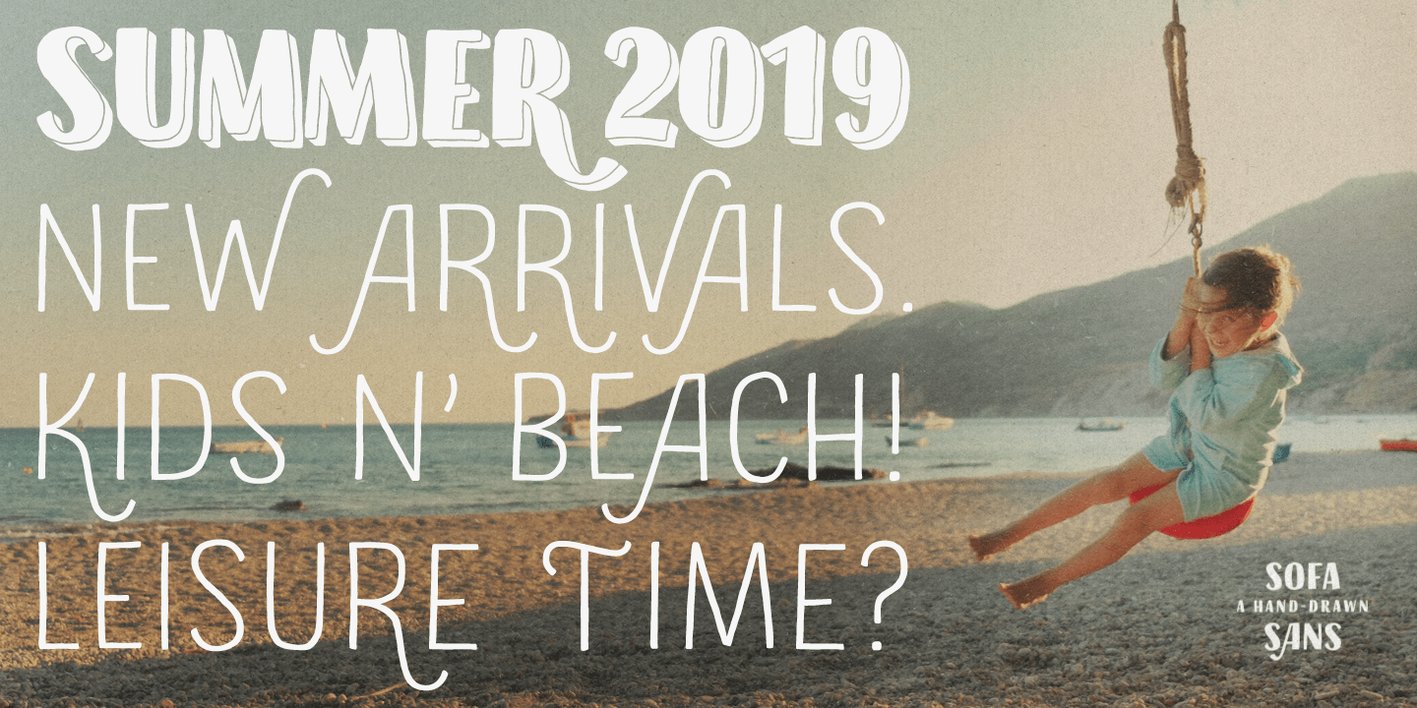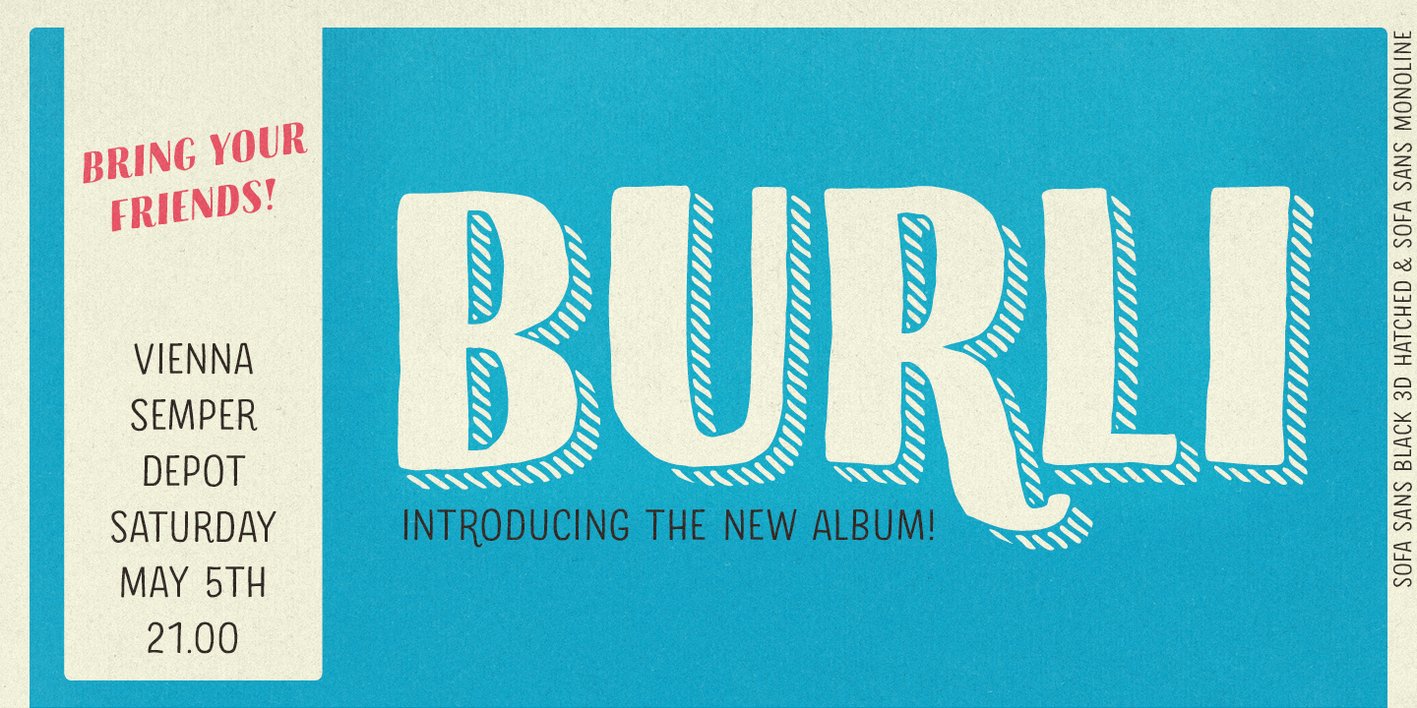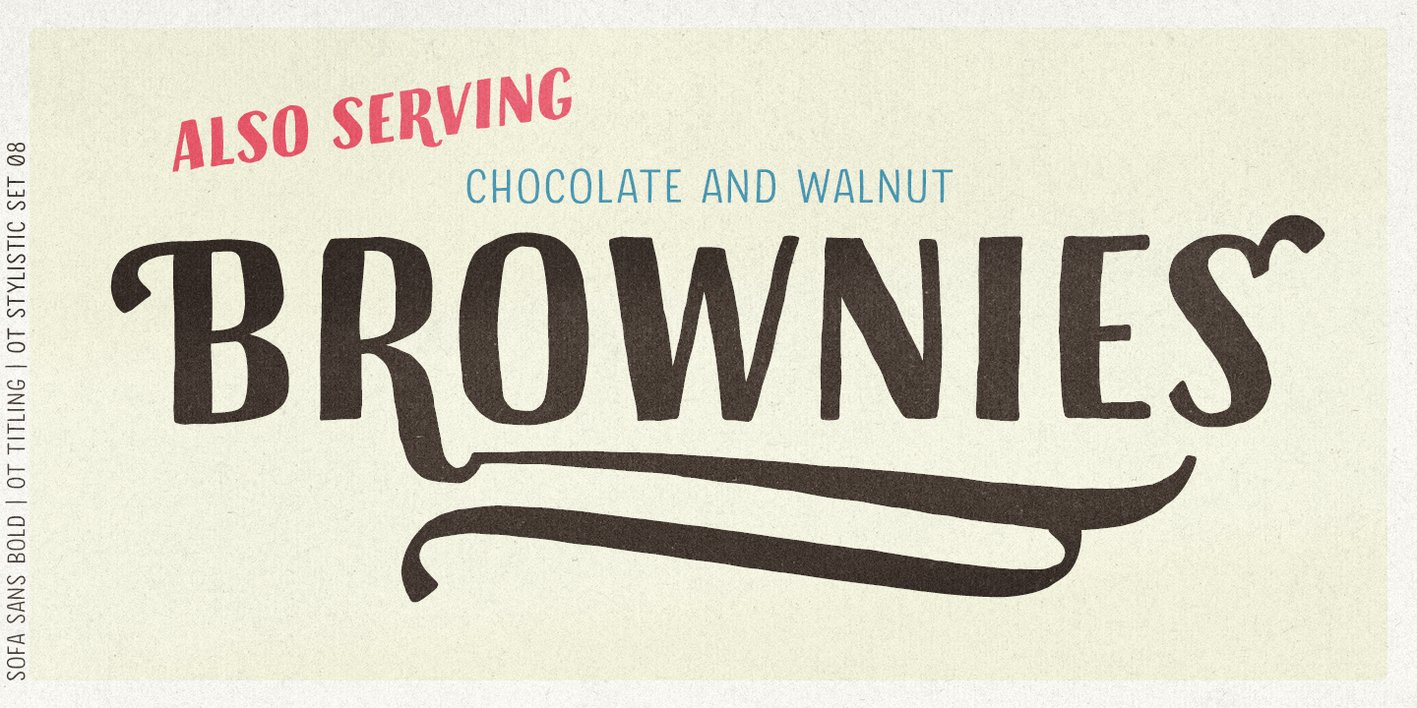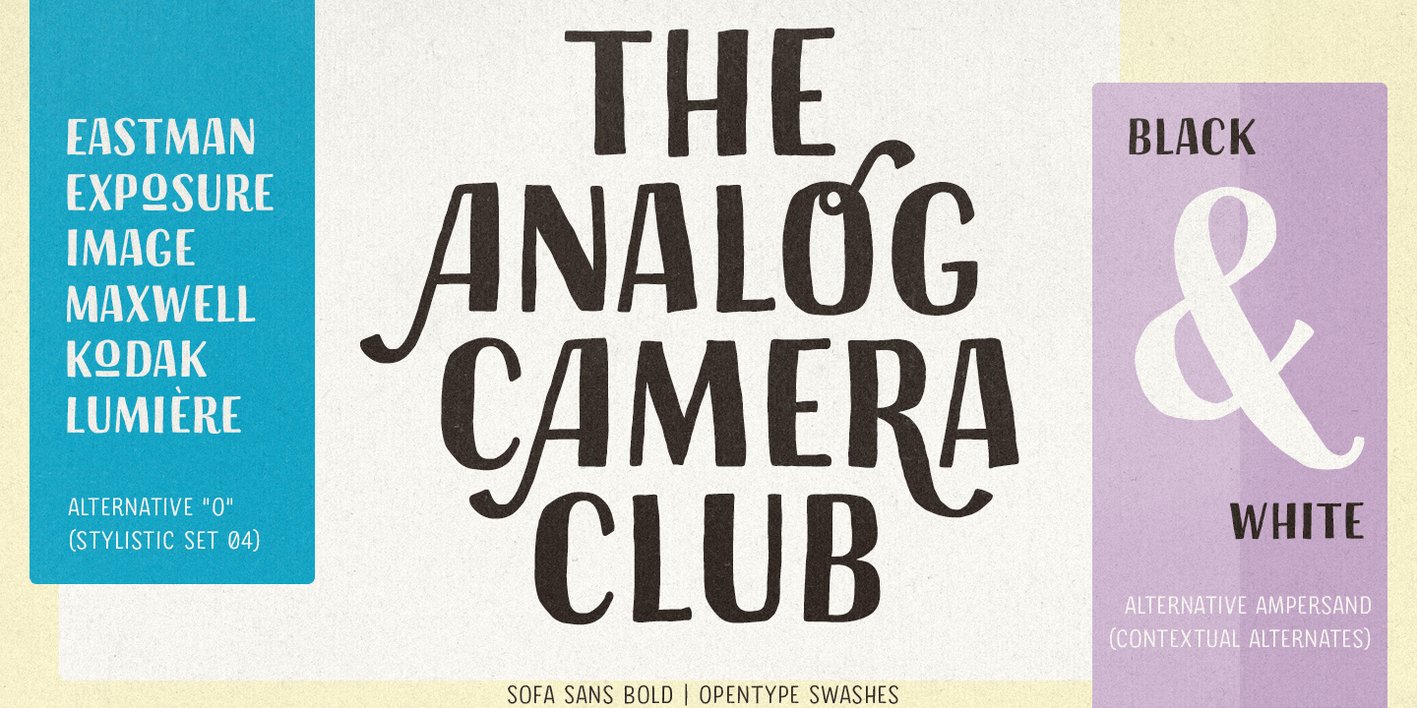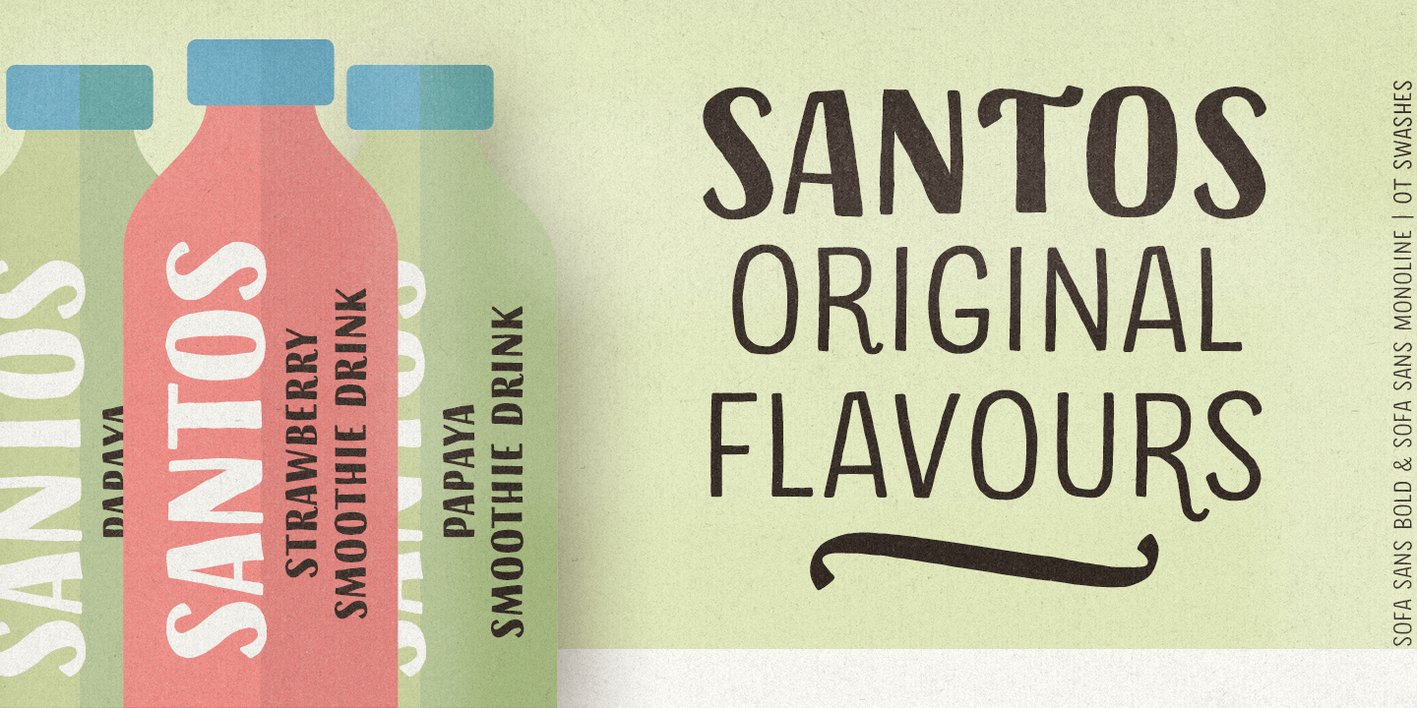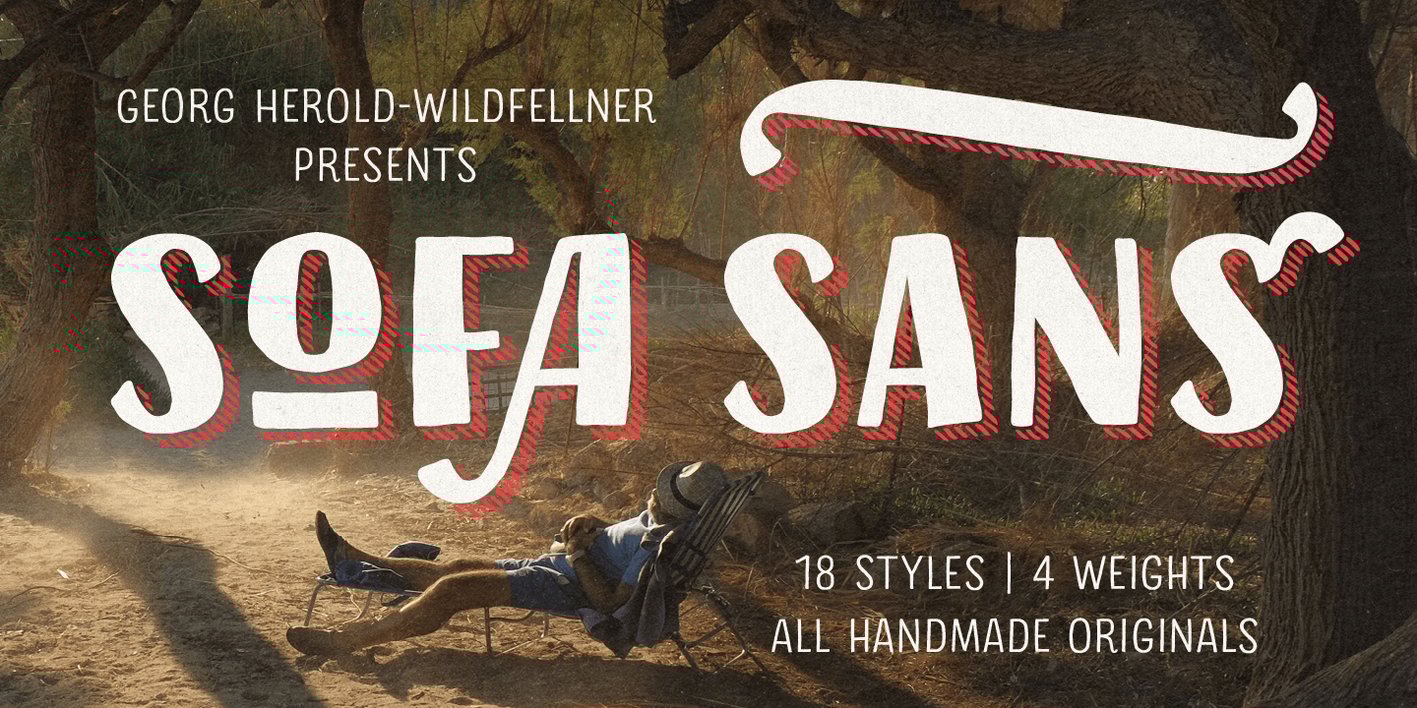
Sofa Sans Hand Font
Sofa Sans Hand Font is perfect for modern comfort branding, casual lifestyle blogs, relaxed café communications, contemporary home décor marketing, minimalist hygge projects, casual personal stationery, modern comfort food packaging, laid-back hospitality materials, casual wedding invitations, comfortable workspace design, relaxed family communications, and contemporary projects that require clean, handwritten typography with modern comfort and casual sophistication.
What makes Sofa Sans Hand Font so exciting is its modern comfort and casual elegance that embodies the relaxed sophistication and contemporary coziness of modern lifestyle design and casual living philosophy. This typeface features clean sans-serif letterforms with handwritten characteristics and organic flow that evoke the personal touch of modern hand-lettering, the comfort of contemporary living spaces, and the kind of casual refinement that makes modern life feel both stylish and genuinely comfortable. The font's casual character and modern appeal make it perfect for contemporary lifestyle brands and comfort-focused projects that want to communicate relaxed sophistication, modern authenticity, and the kind of effortless style that defines contemporary comfortable living.
Sofa Sans Hand Font typically comes in multiple weights and styles including Light, Regular, Medium, and Bold variations. Many versions also include modern ornaments, lifestyle-themed decorative elements, and contemporary symbols that enhance the font's casual functionality and provide designers with comprehensive tools for creating relaxed, hand-lettered typography compositions that celebrate modern comfort and casual sophistication.
Embrace modern comfort with the casual elegance of Sofa Sans Hand Font Free Download. This contemporary typeface brings together handcrafted authenticity with modern design sensibilities, making it an essential tool for contemporary lifestyle brands and casual-focused businesses that need to create memorable, relaxed communications that resonate with audiences seeking modern comfort, casual style, and the kind of effortless sophistication that defines contemporary comfortable living. The font's casual character ensures your modern projects will convey genuine warmth and contemporary appeal.
Whether you're designing modern lifestyle materials, casual hospitality branding, or contemporary comfort communications, Sofa Sans Hand Font delivers exceptional modern authenticity and casual charm that connects with audiences who appreciate contemporary living and relaxed design aesthetics. Its clean, handwritten appearance works beautifully with modern color palettes and contemporary imagery, creating designs that feel both casually personal and professionally contemporary.
The thoughtfully crafted letterforms of Sofa Sans Hand Font demonstrate perfect balance between modern clean design and handcrafted authenticity. Each character has been designed to maintain the organic quality of contemporary hand-lettering while ensuring excellent readability for modern applications, making it particularly valuable for lifestyle communications where typography must convey both casual comfort and the kind of modern sophistication that makes contemporary living feel both stylish and genuinely relaxed.